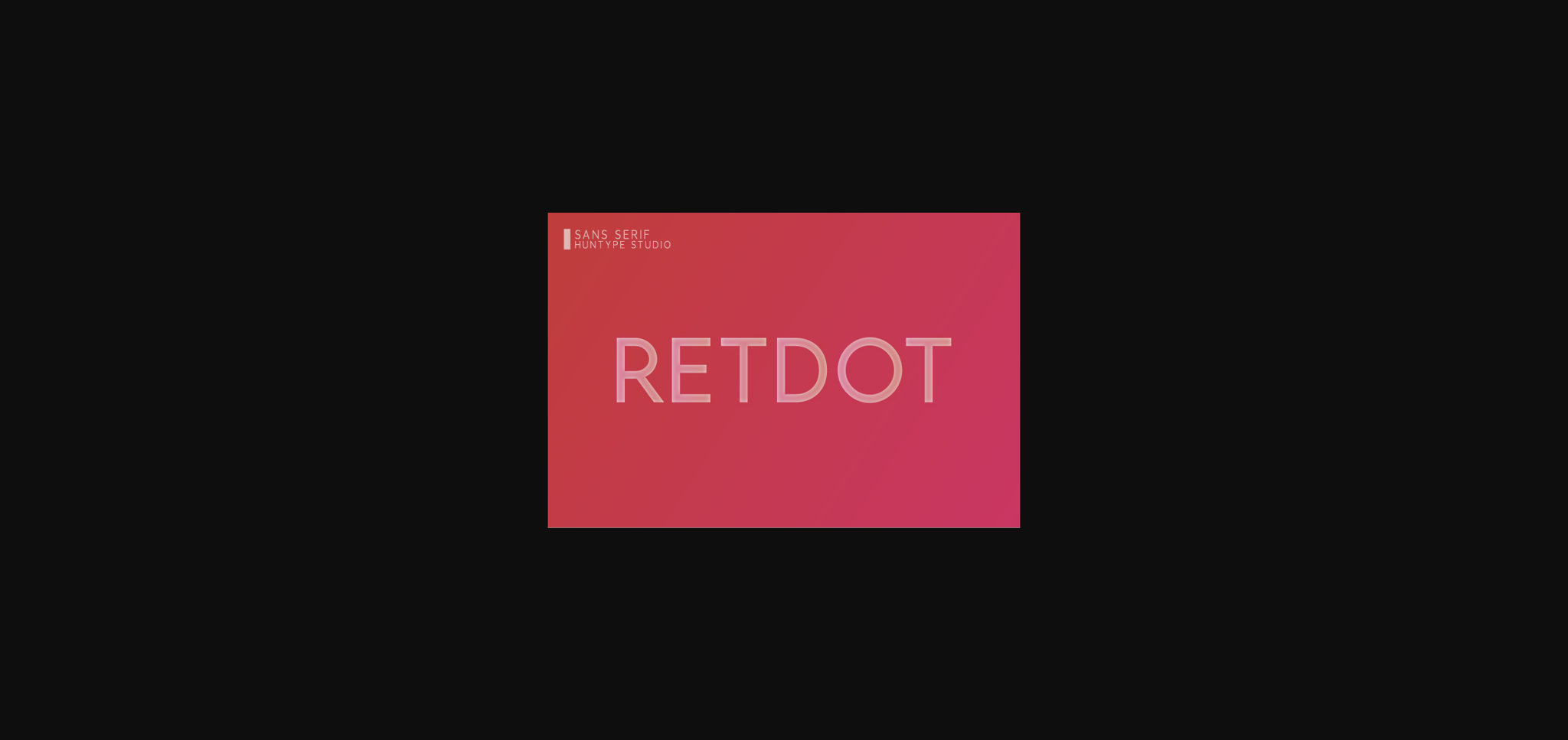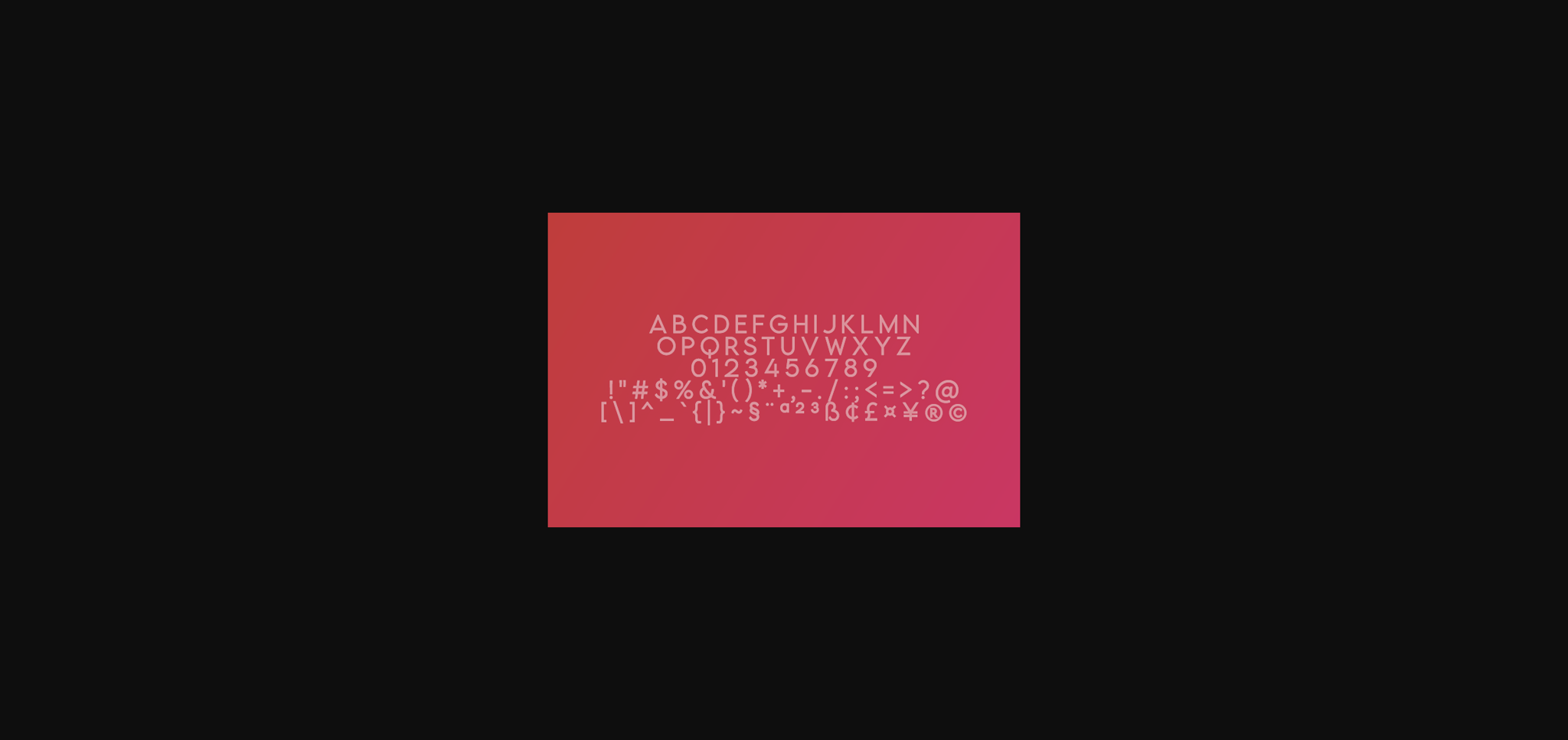
About Retdot Font
Retdot is a powerful sans serif font. It features sturdy lines, juxtaposed with bold yet gentle rounding. Retdot is the perfect font for logotypes, branding, apparel, and much more.